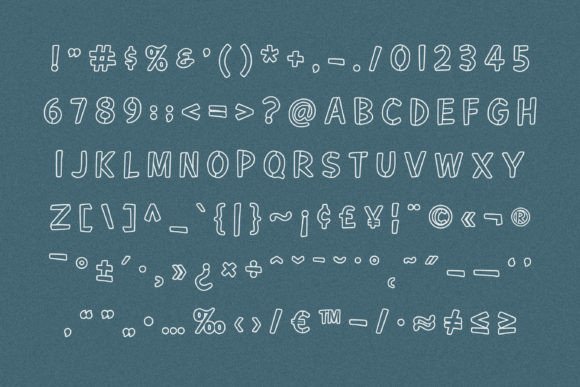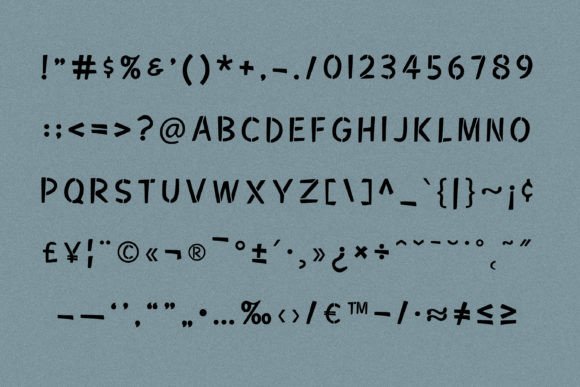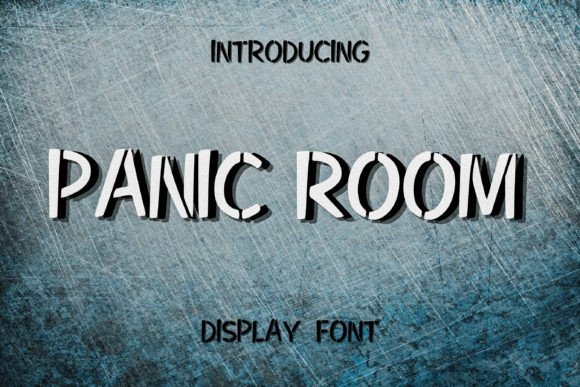
Introduction to Panic Room Font
Panic Room is an all-caps stencil display font.
Whatever the topic, this font will be a wonderful asset to your font library, as it has the potential to enhance any creation .
Why Choose Panic Room Font?
Panic Room Font offers exceptional quality and versatility, making it a valuable addition to your design toolkit. Whether you’re creating for personal projects or commercial use, Panic Room Font delivers professional results.